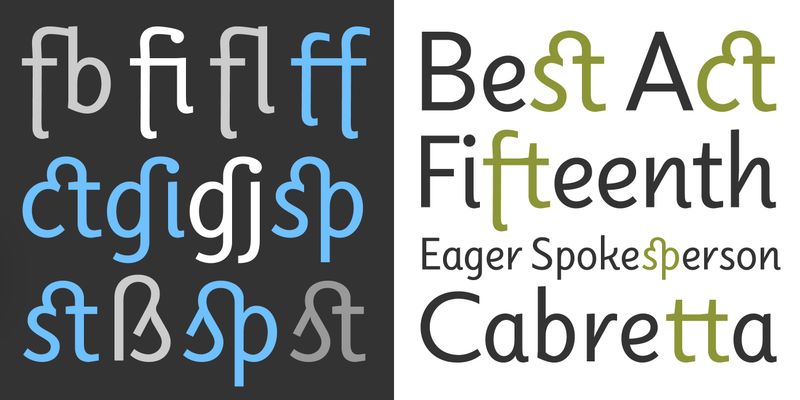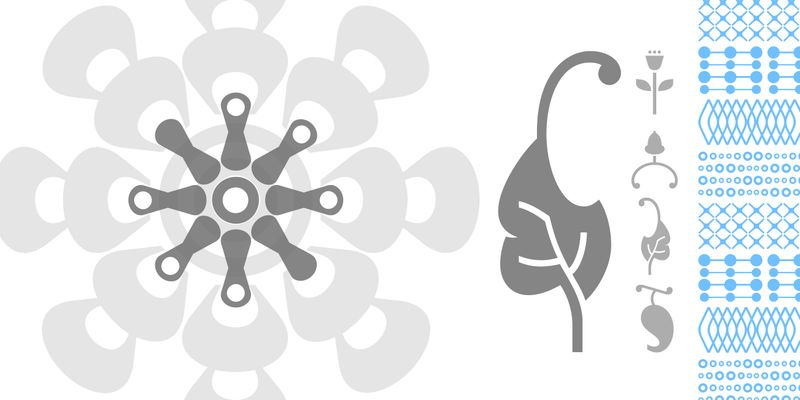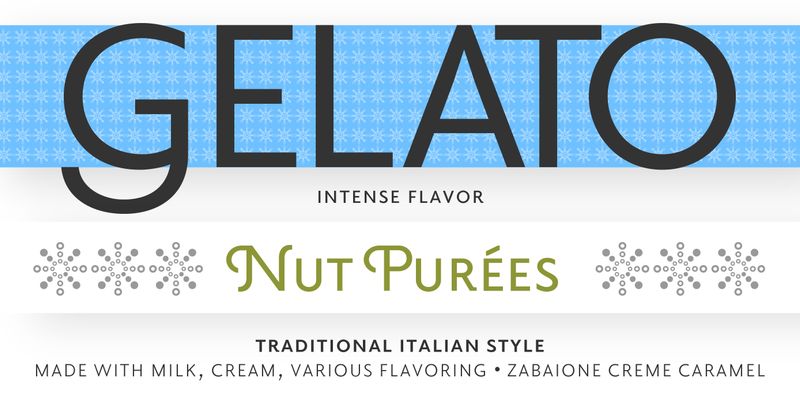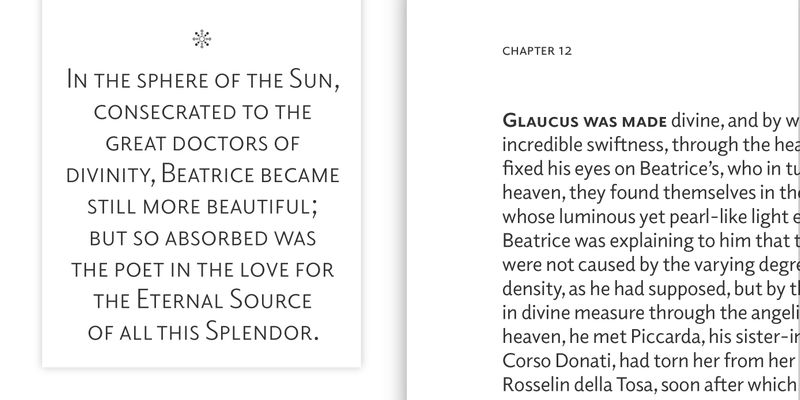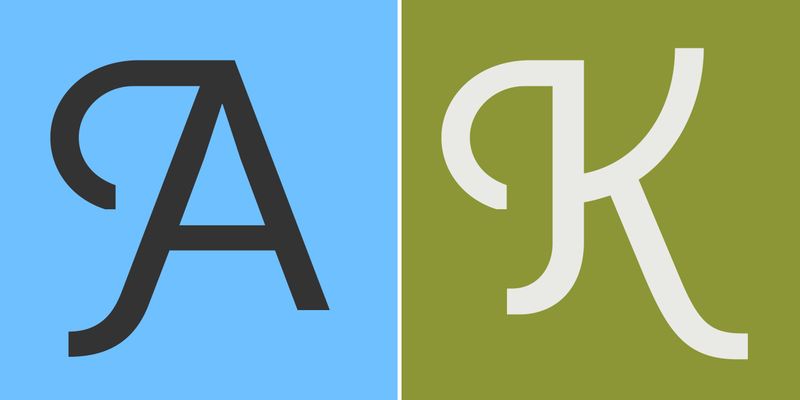
Elido (Odile in reverse) is the sans counterpart to Odile, a serif type. Together they form a sans and serif superfamily with a wide range of variations for editorial and display use. Elido follows Odile’s proportions and matches the weight distribution and typographic color of its serif twin.
Odile’s conceptual approach is echoed in the structure and anatomy of the Elido family. The arched stroke low off the stem reveals a script characteristic most pronounced in the Elido Upright Italic. This particular interpretation is gradually diminished in the Italic and becomes even less emphasized in the Regular style. Six balanced weights, from an elegant Light to a pronounced Black, are in tune with three display solutions and a set of beautiful Ornaments.
Sans serif initials amount to a rare finding. The charming mono-linear Elido Initials come in two flavors, elaborate and rational, designed to hold their own in editorial and headline sizes. This type design boasts an extensive character set and many OpenType features. OT stylistic variants offer a one-storey ‘a’ for the roman weights, alternate ‘g’ and ‘s’ designs for the italics, and a variant glyph ‘s’ for the Upright Italic. Elido is an excellent choice for editorial and display use.